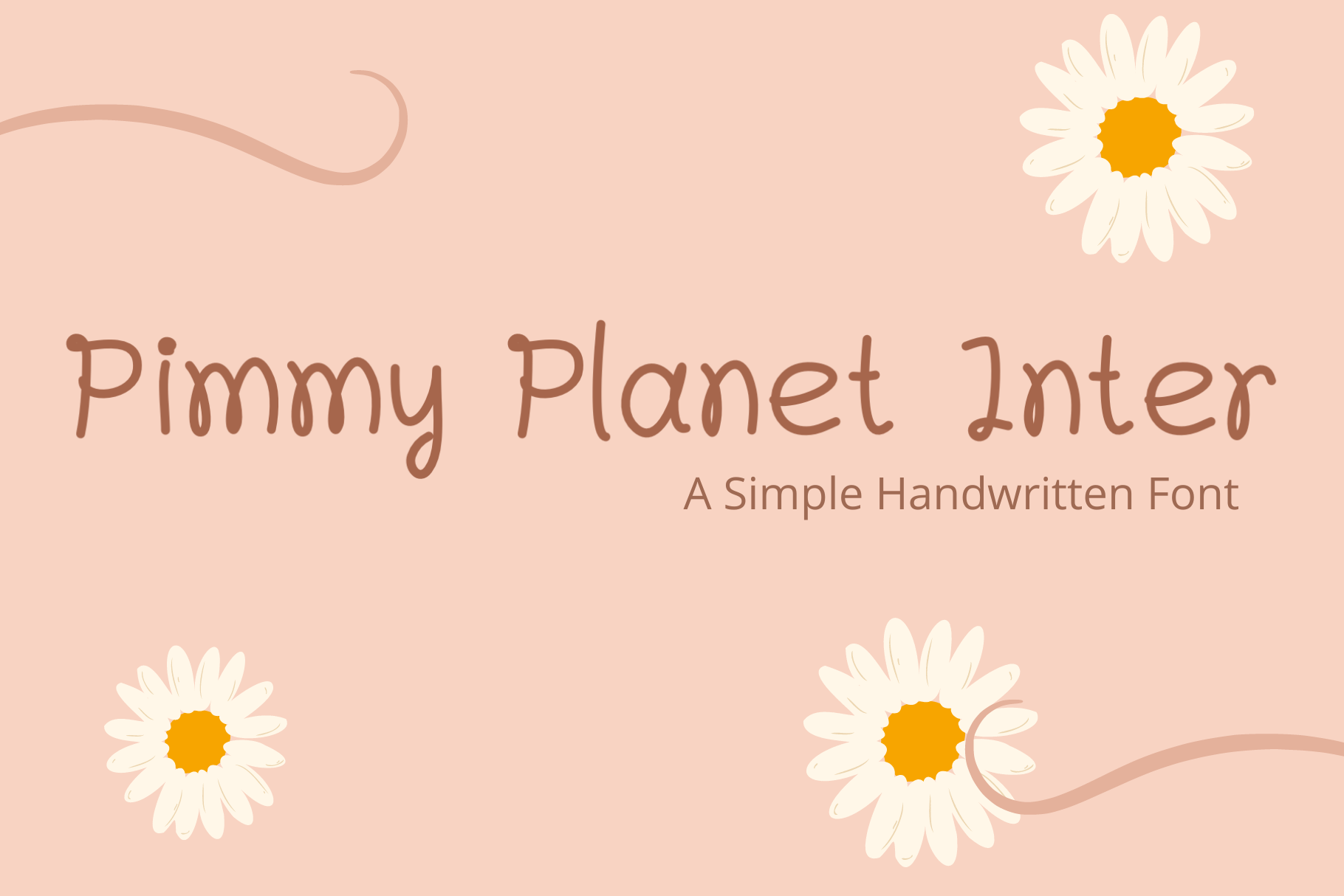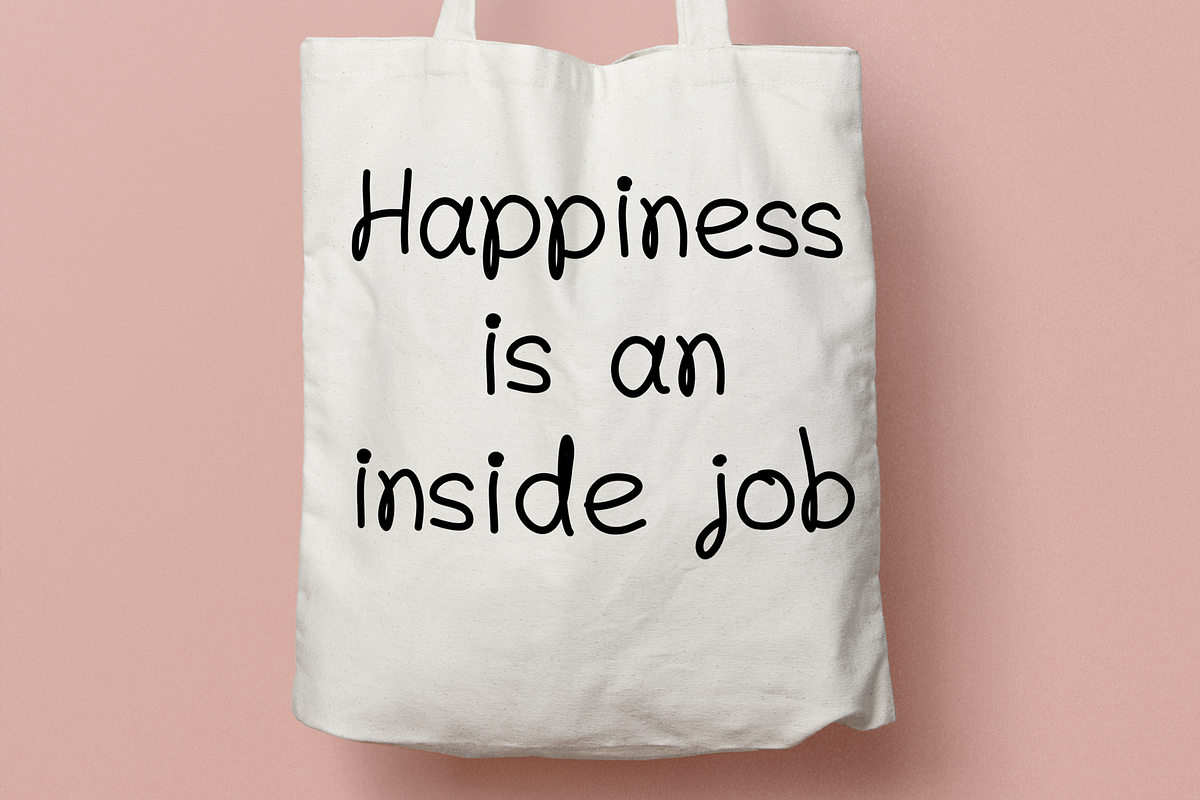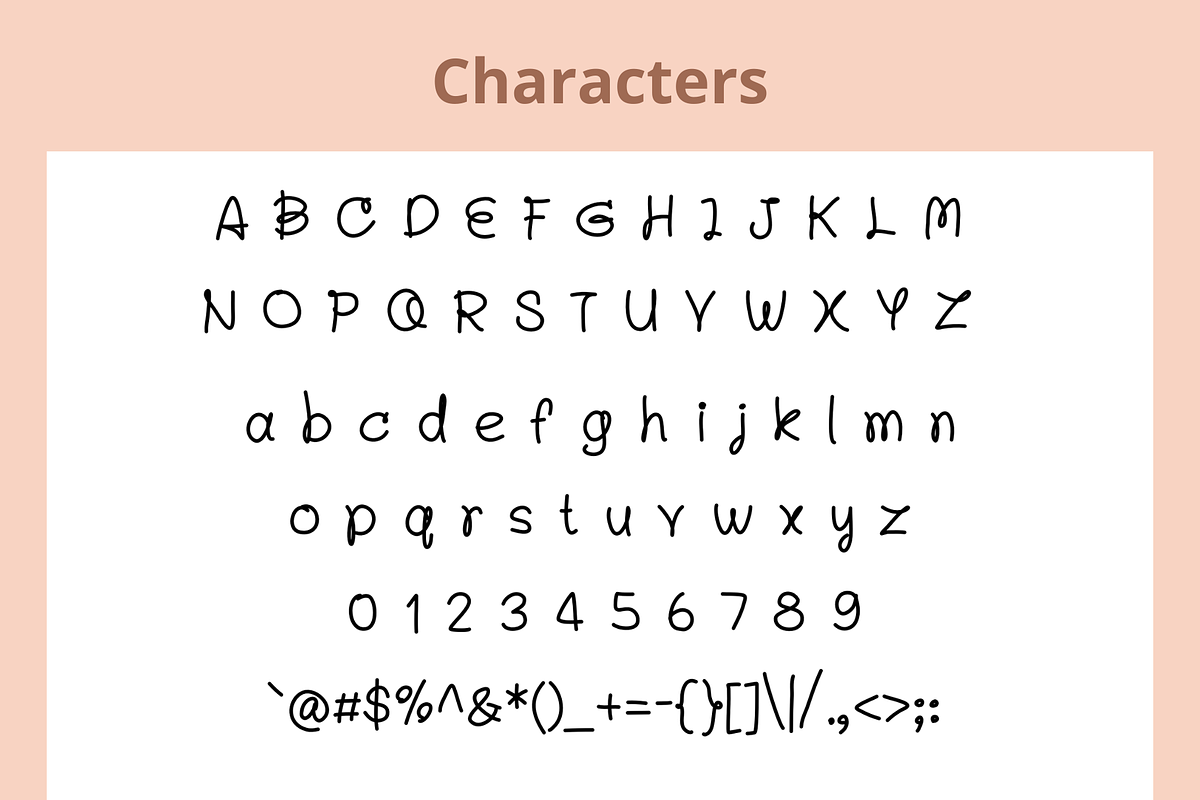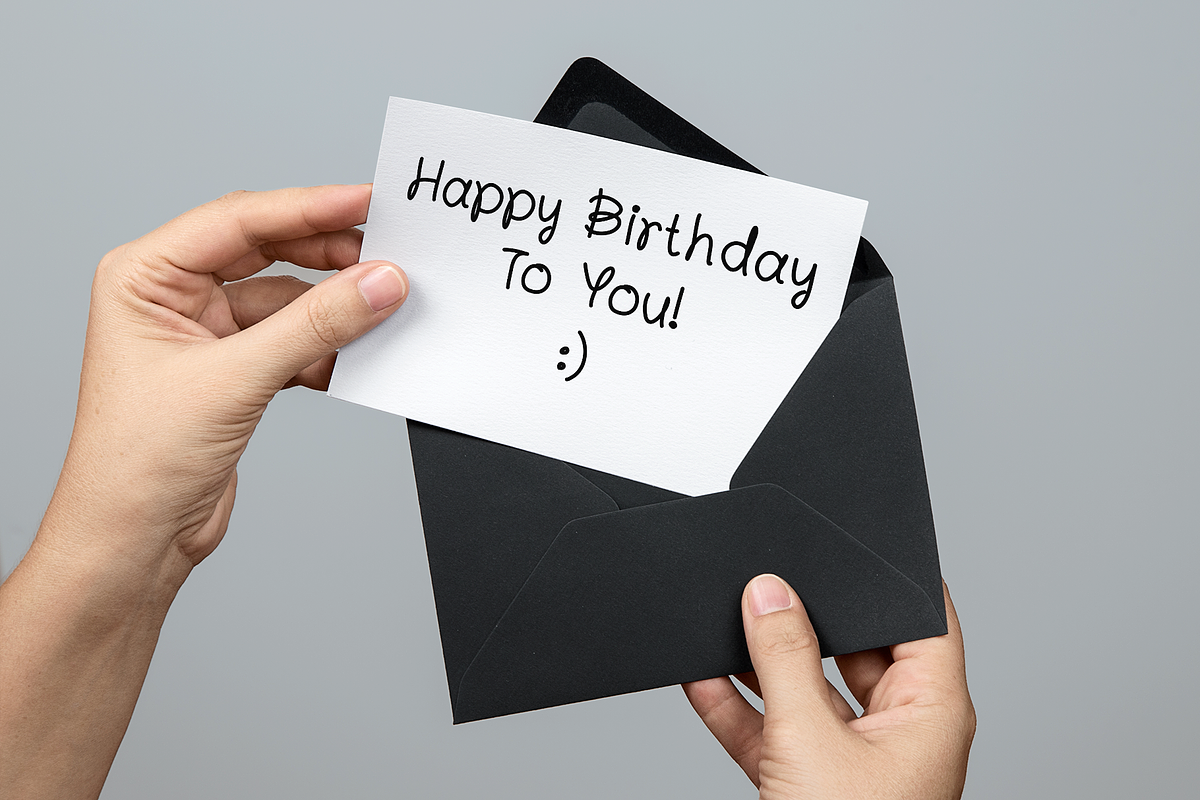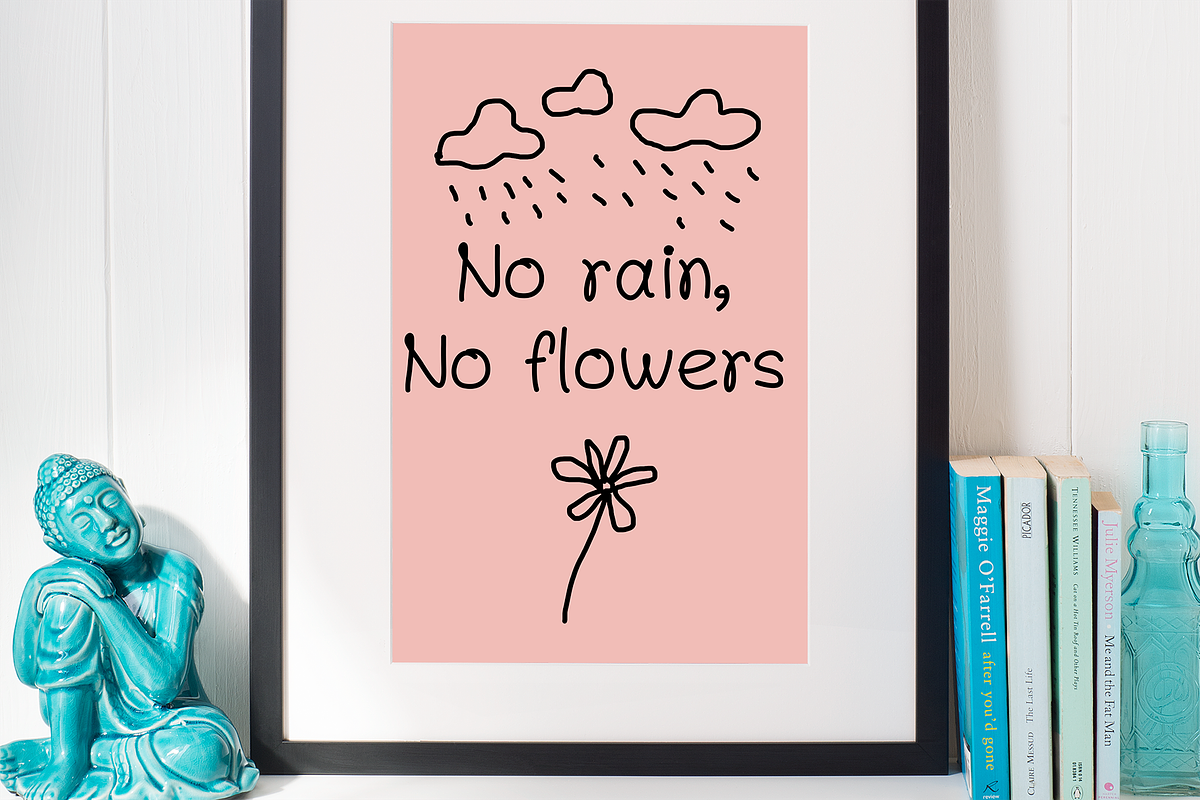
Pimmy Planet Inter Handwritten Font
I would like to introduce Pimmy Planet Inter a simple handwritten font
Pimmy Planet Inter a cute simple handwritten font. Giving off a fun vibe, informal and human handwriting look. It can be used as a cute display quotes, kids related, blog, branding, packaging, wedding invitation project, etc.
- Standard English(A-Z, a-z)
- Western European supported
- numbers(0-9) & punctuations